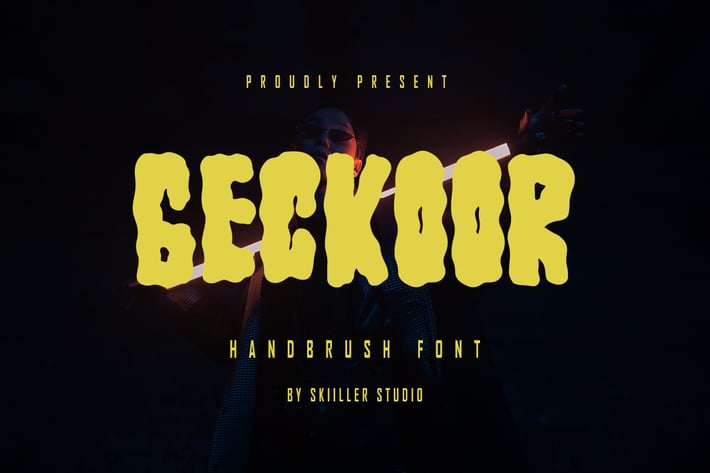
Geckoor - Handbrush Font
Geckoor brush Font. It looks beautiful on a variety of designs requiring a personalized style, such as wedding invitations, thank you cards, weddings, greeting cards, logos and so on. This font is PUA encoded which means you can access all of the glyphs